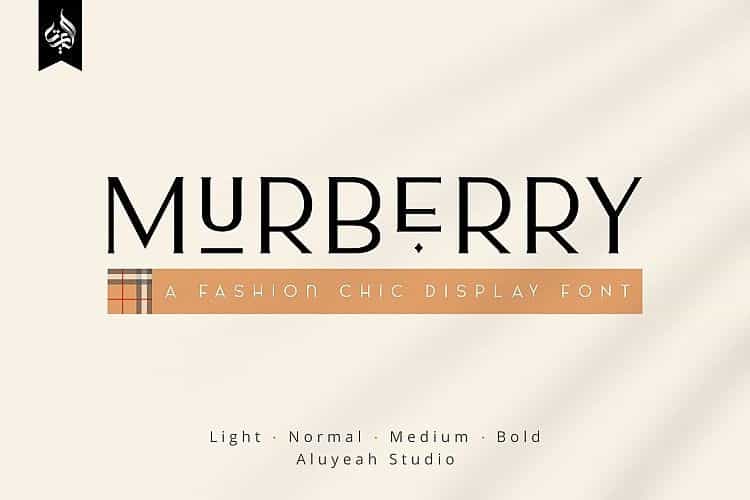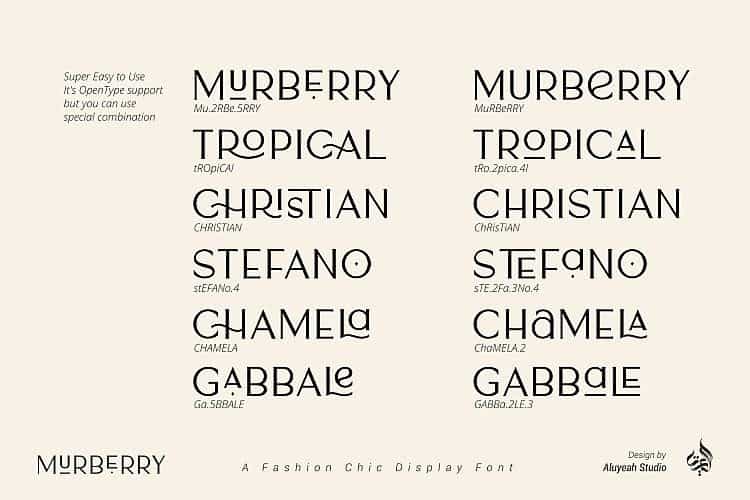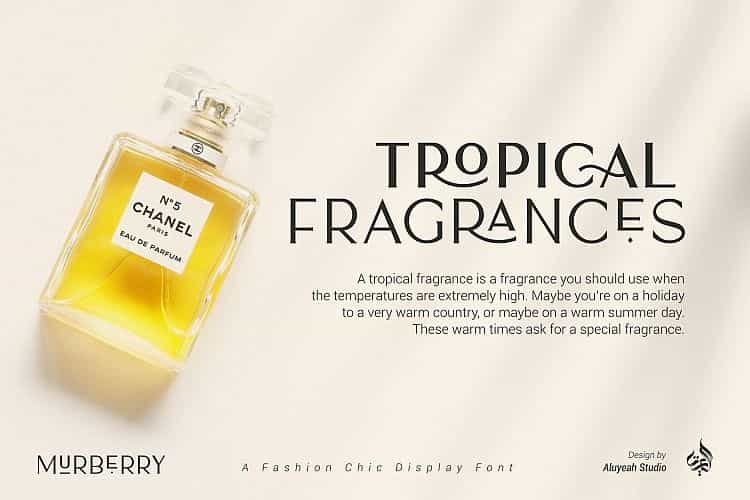
Murberry is a fashion chic display font. This font was a result of hard work and it can be seen from its inspiration which is one of the leading fashion brands in the world. Translating this, in a nutshell it results to the creation of a luxurious and stylish design.